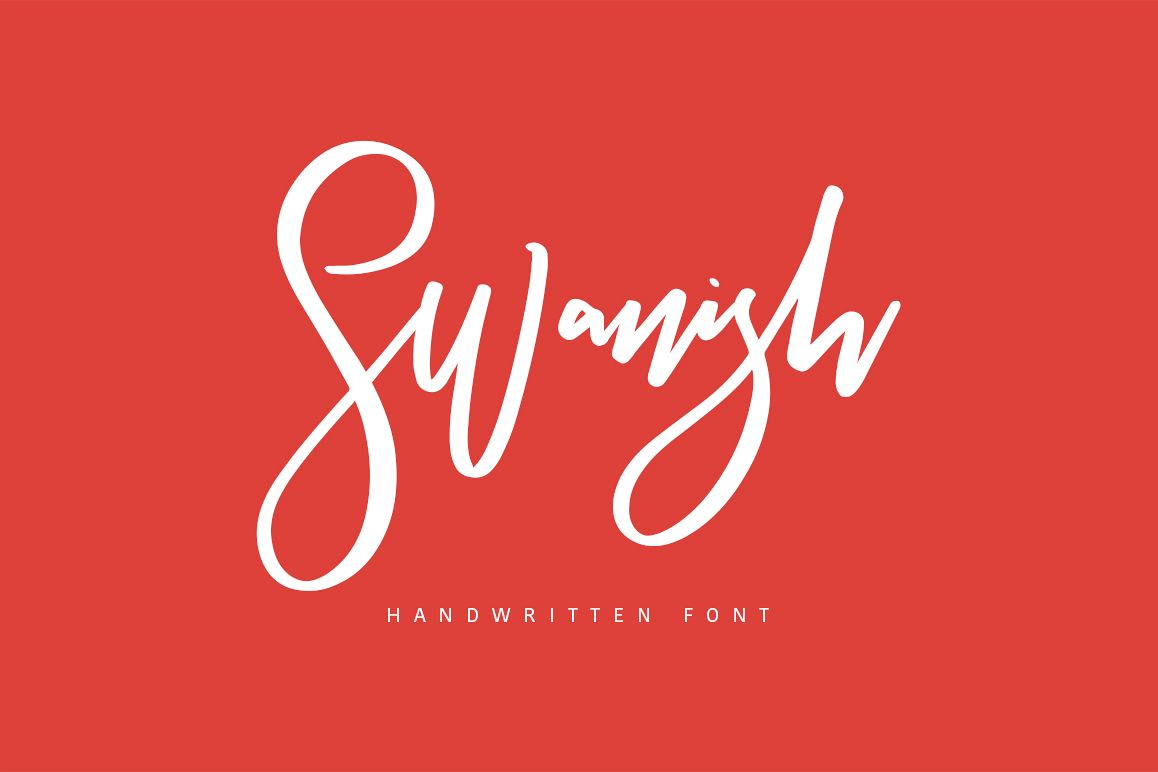
Give your designs an authentic handcrafted feel. "Swanish" is perfectly suited to stationery, logo, typography quotes, magazine or book cover, website header, clothing, branding, packaging design and more.